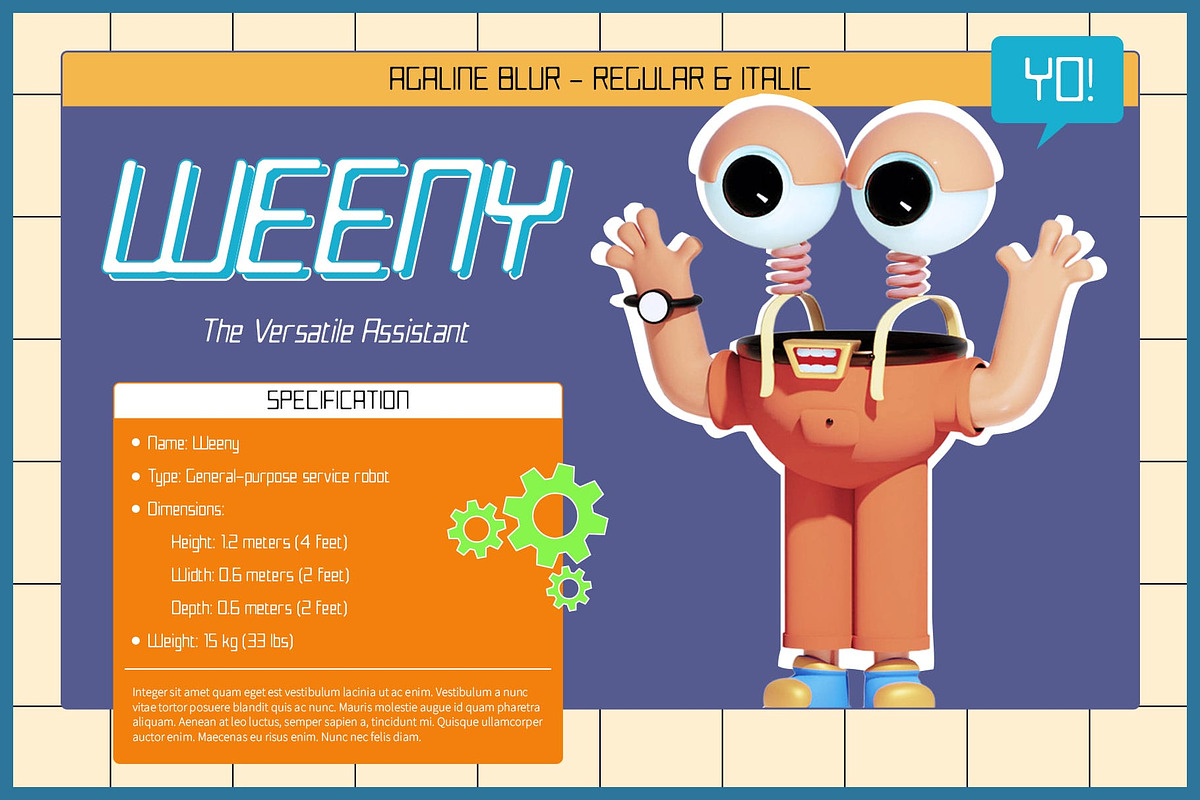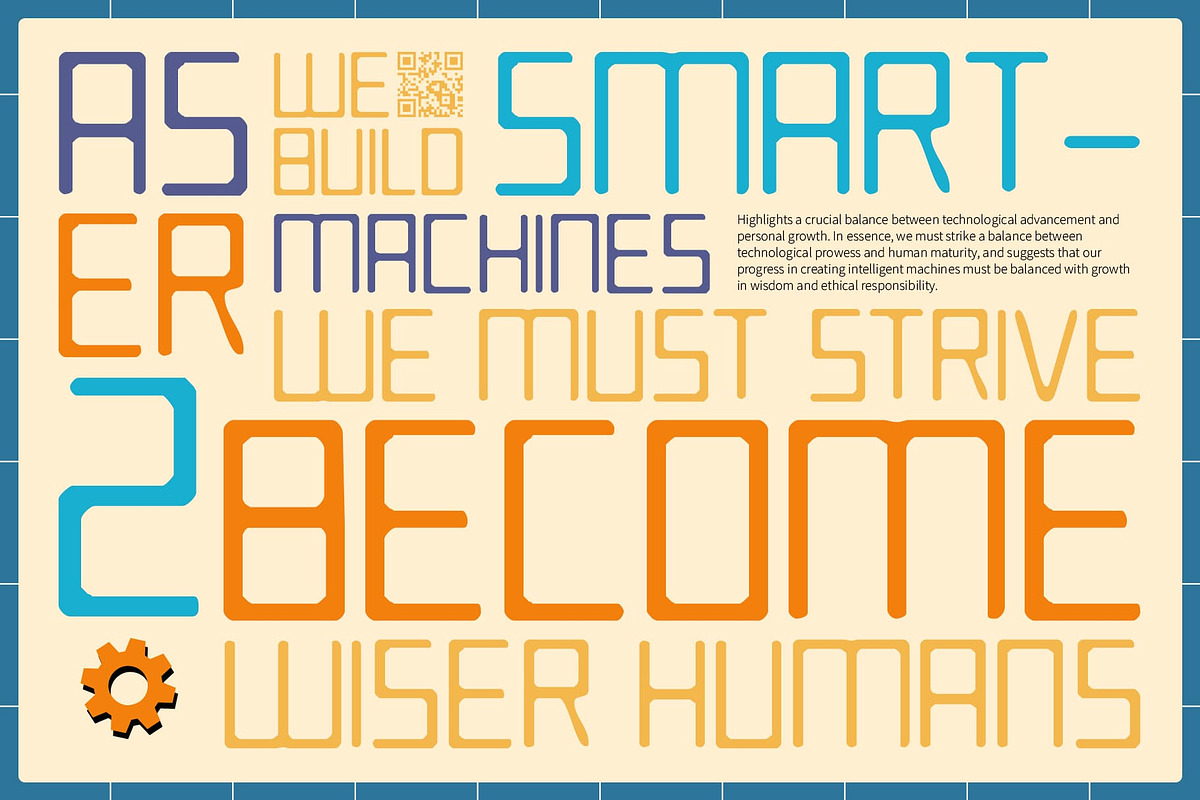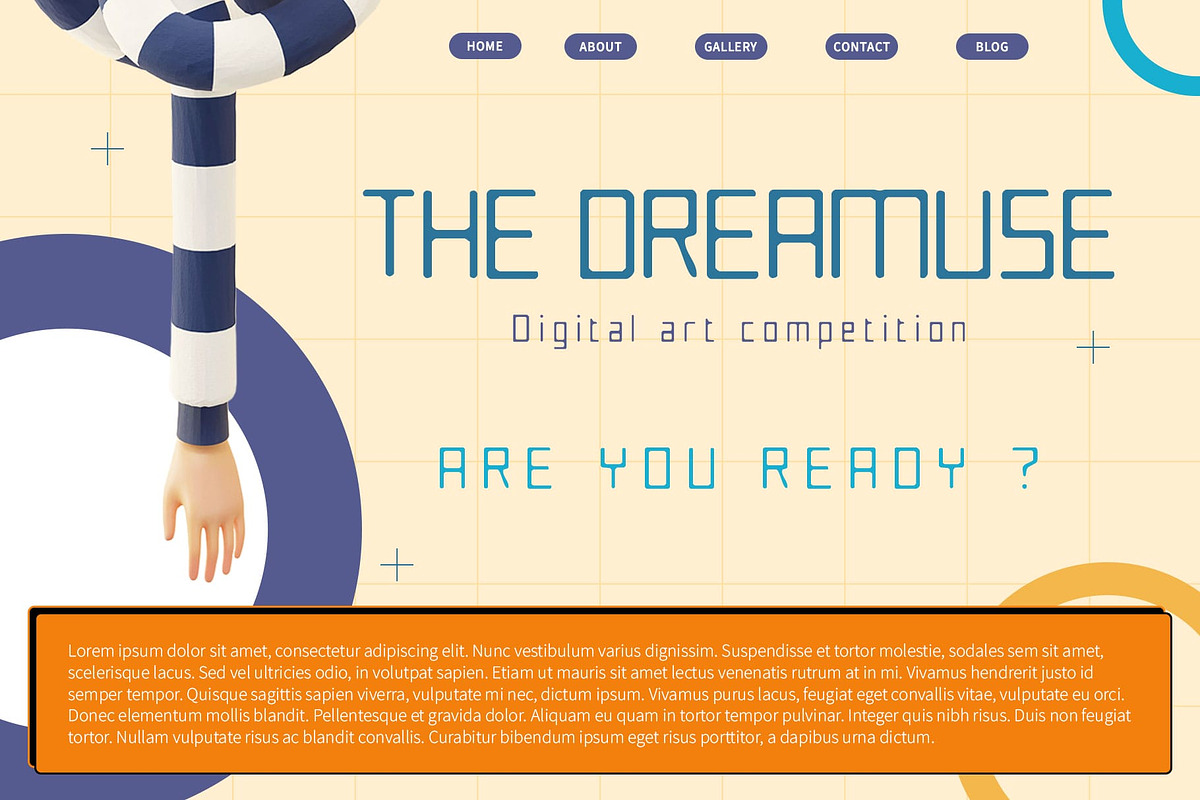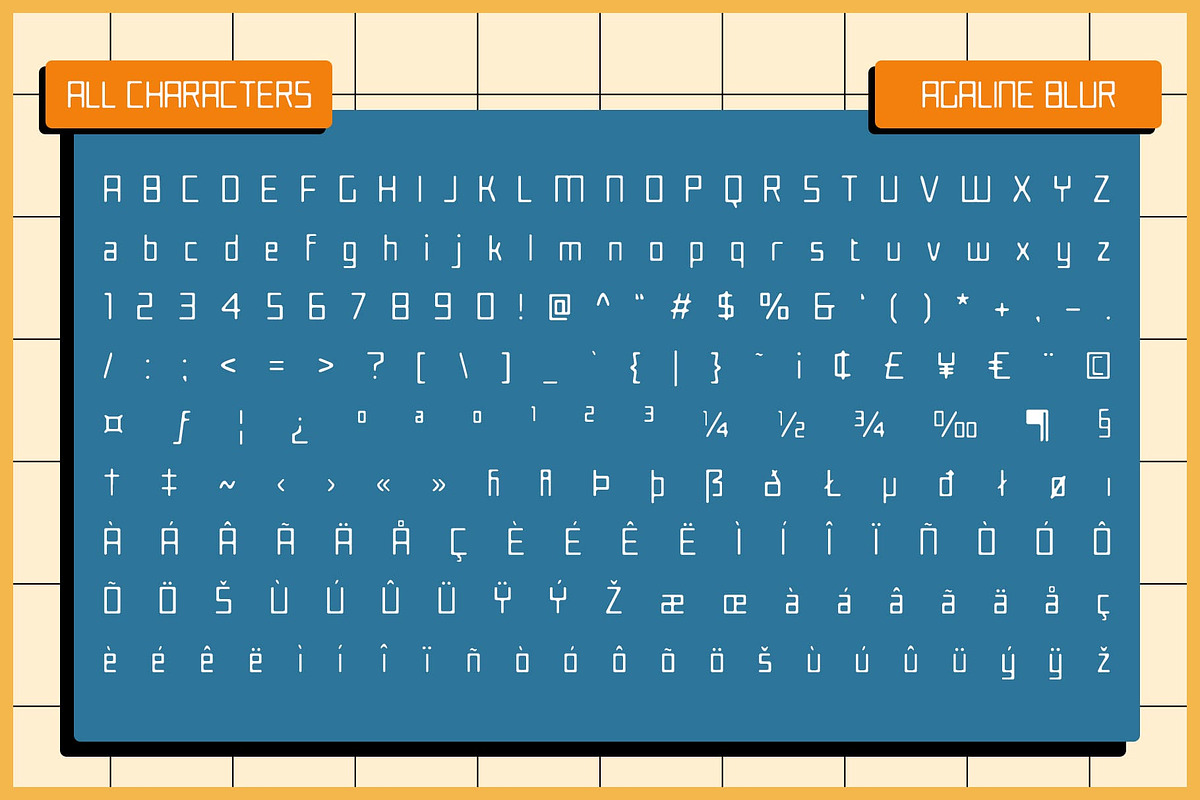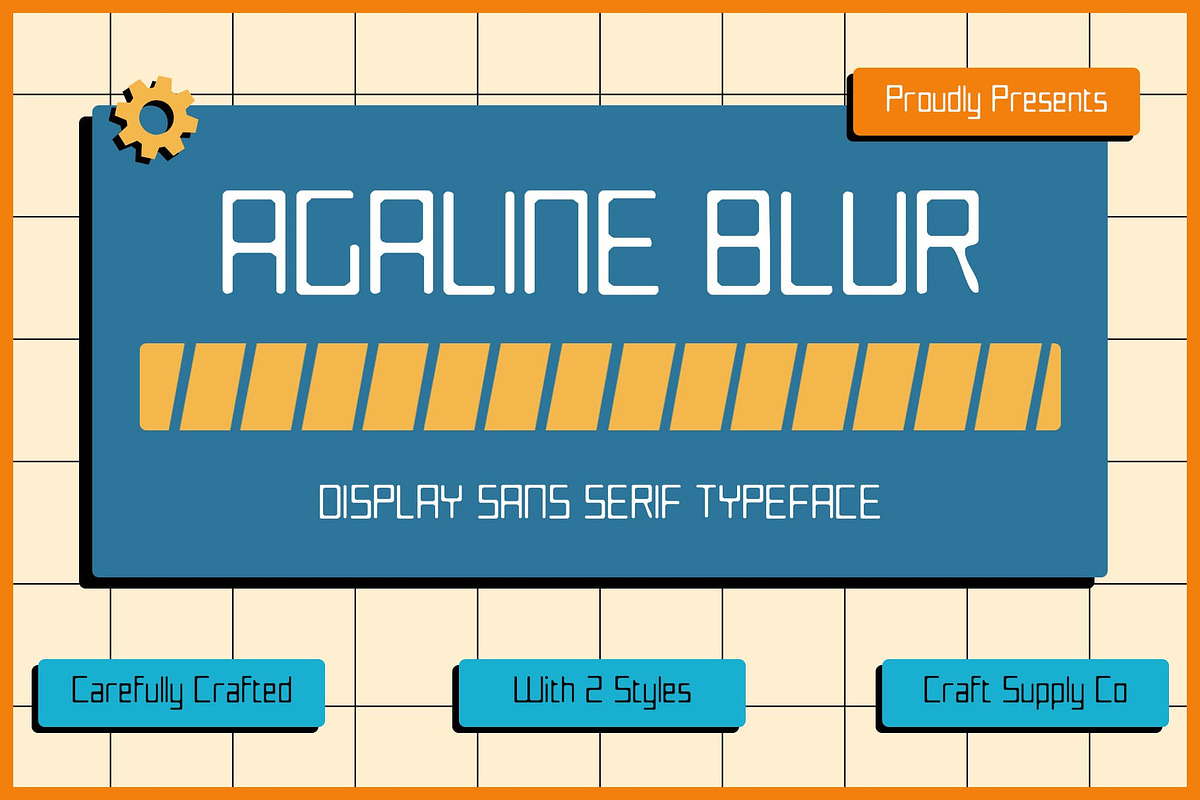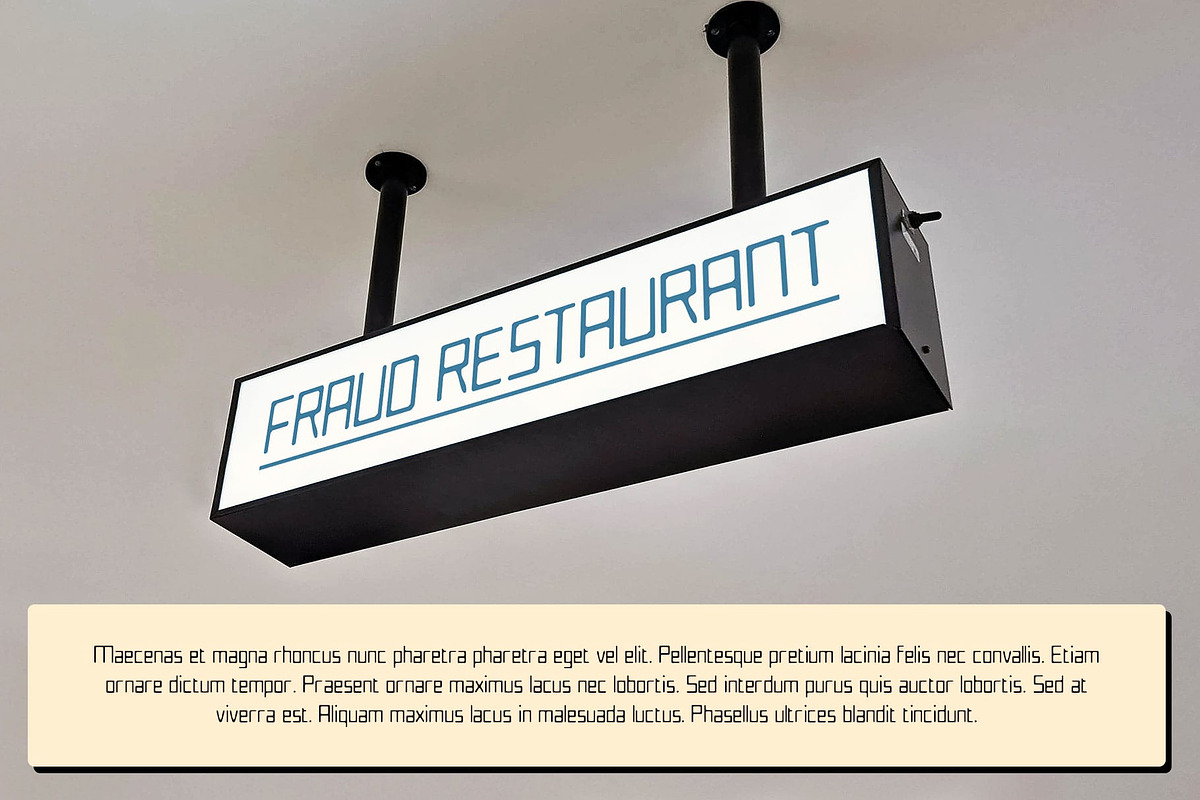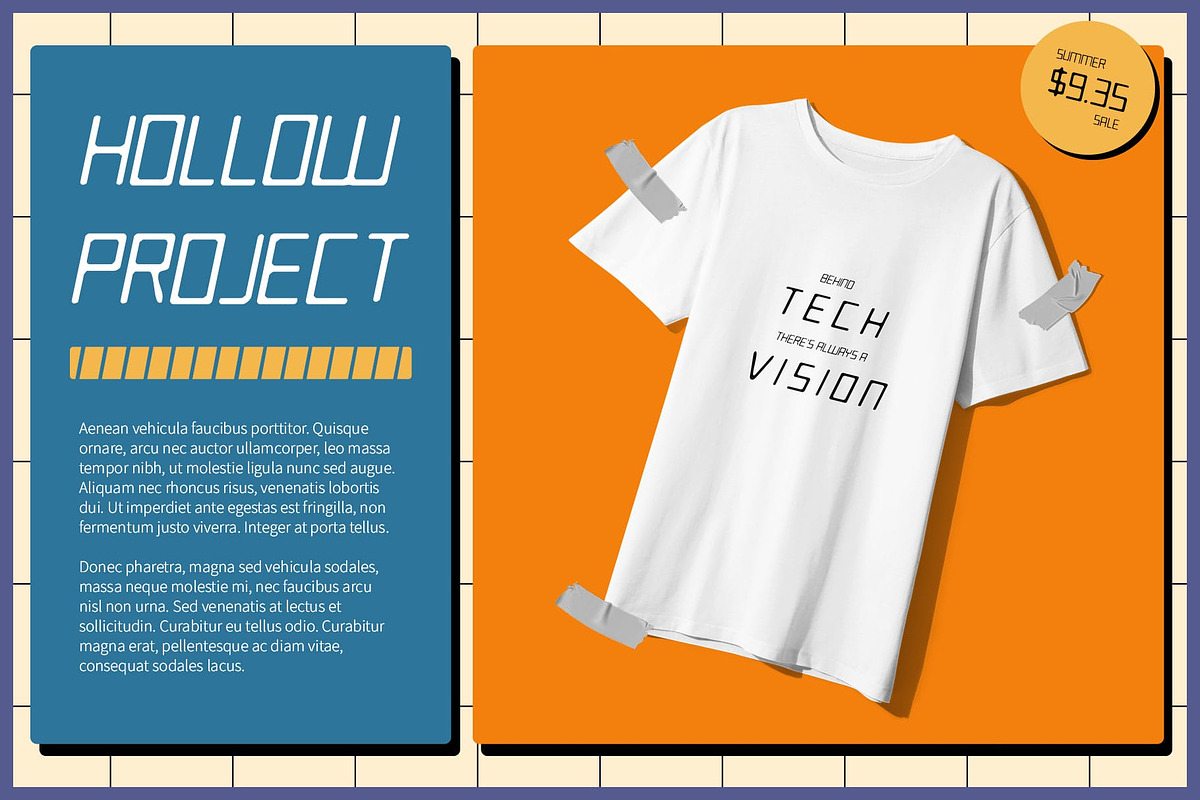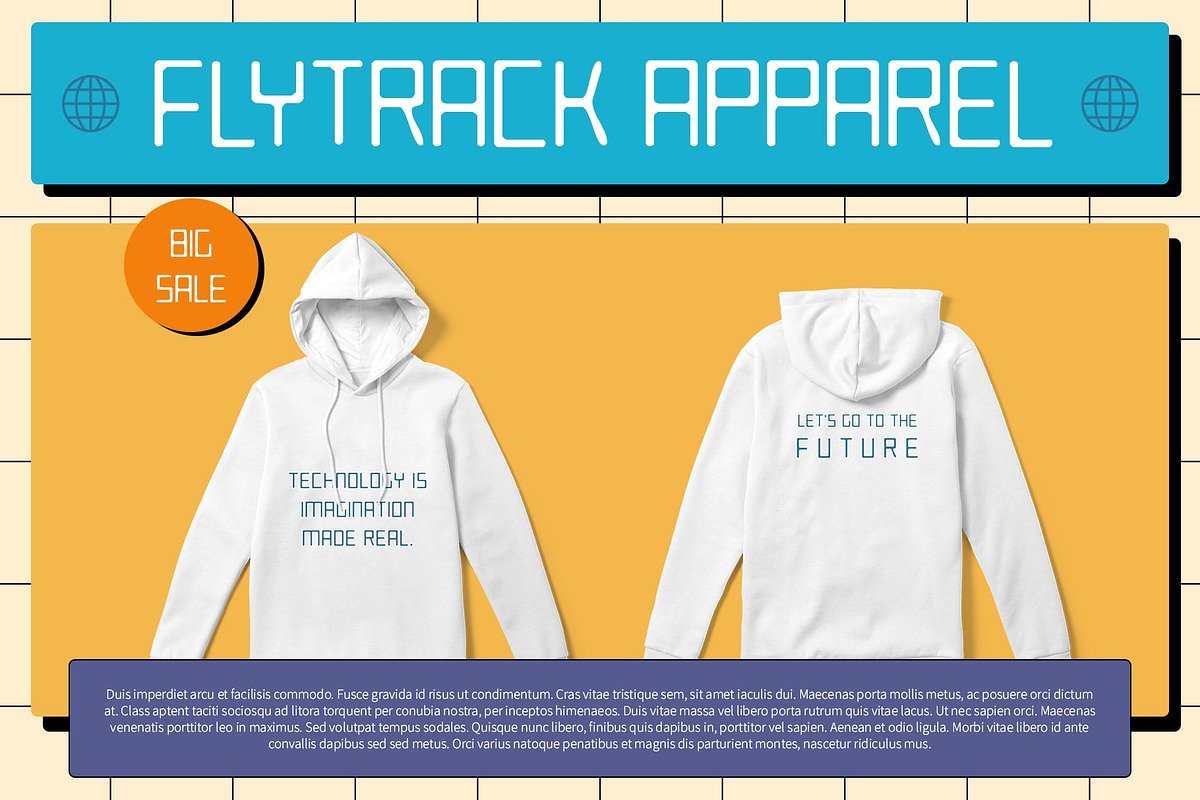
Agaline Blur
Agaline Blur Font: Modern Display Sans-Serif with a Futuristic Edge
Minimalist Techno-Inspired Design Agaline Blur is a modern display sans-serif font that merges minimalist shapes with a techno-inspired style. Its clean, geometric lines offer a sophisticated and advanced impression, perfect for conveying a sense of modernity and innovation.
Futuristic Elements with Dynamic Blur The font’s futuristic design is enhanced by a blur effect, adding depth and a dynamic quality to its appearance. This unique feature introduces extra dimension while maintaining a clear and readable format, making it both striking and functional.
Ideal for Technology and Futuristic Applications Agaline Blur is well-suited for technology branding, futuristic web design, and other modern applications. Its blend of minimalism, techno elements, and dynamic blur makes it an excellent choice for projects that require a cutting-edge look with a focus on clarity and readability.
Sophisticated and Innovative Perfect for any design that aims to highlight forward-thinking sophistication, Agaline Blur delivers a modern and innovative aesthetic while ensuring the content remains easily readable and engaging.
- Agaline Blur Regular
- Agaline Blur Italic